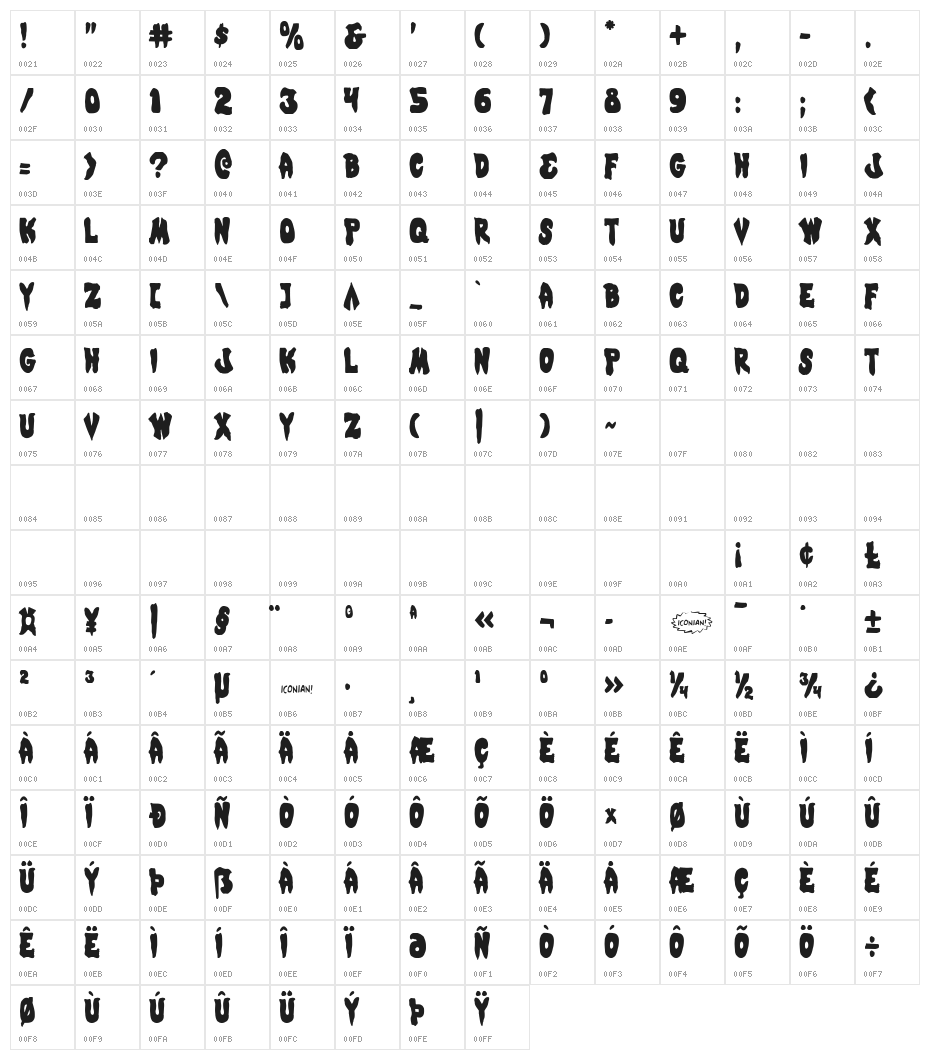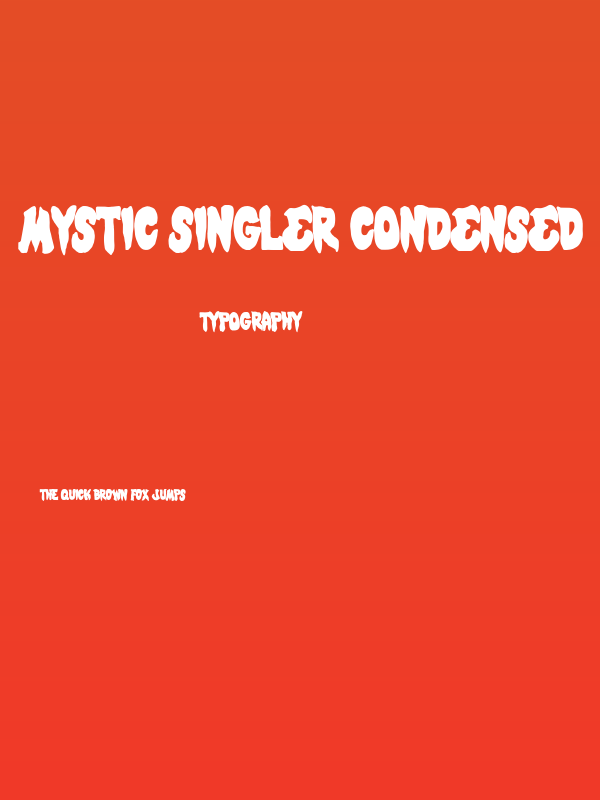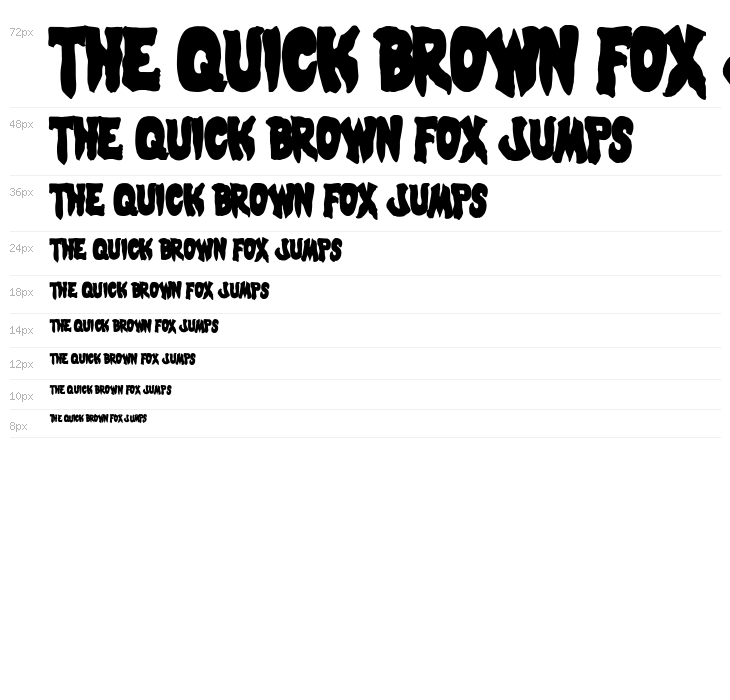
Mystic Singler Condensed Font
Mystic Singler Condensed Description
This font features a bold and dramatic style with thick, irregular strokes that give it a unique, organic appearance. The characters are heavily condensed, creating a compact and impactful look. The uppercase and lowercase letters share a consistent design, with exaggerated curves and a playful, almost whimsical touch. The numbers and special characters maintain this bold, expressive style, making them stand out. The overall aesthetic is reminiscent of hand-drawn or painted lettering, adding a touch of creativity and artistic flair.
| Proposed Projects | Ideal for creative projects such as posters, album covers, or branding that requires a bold, artistic touch. |